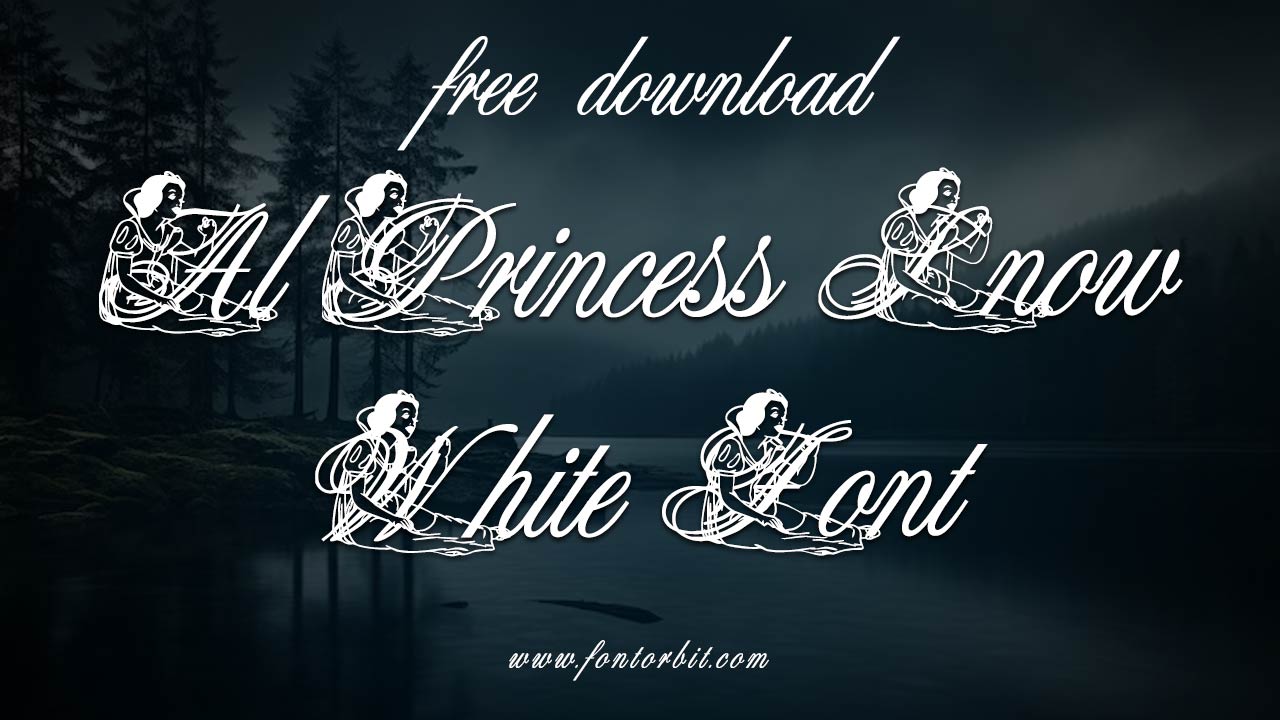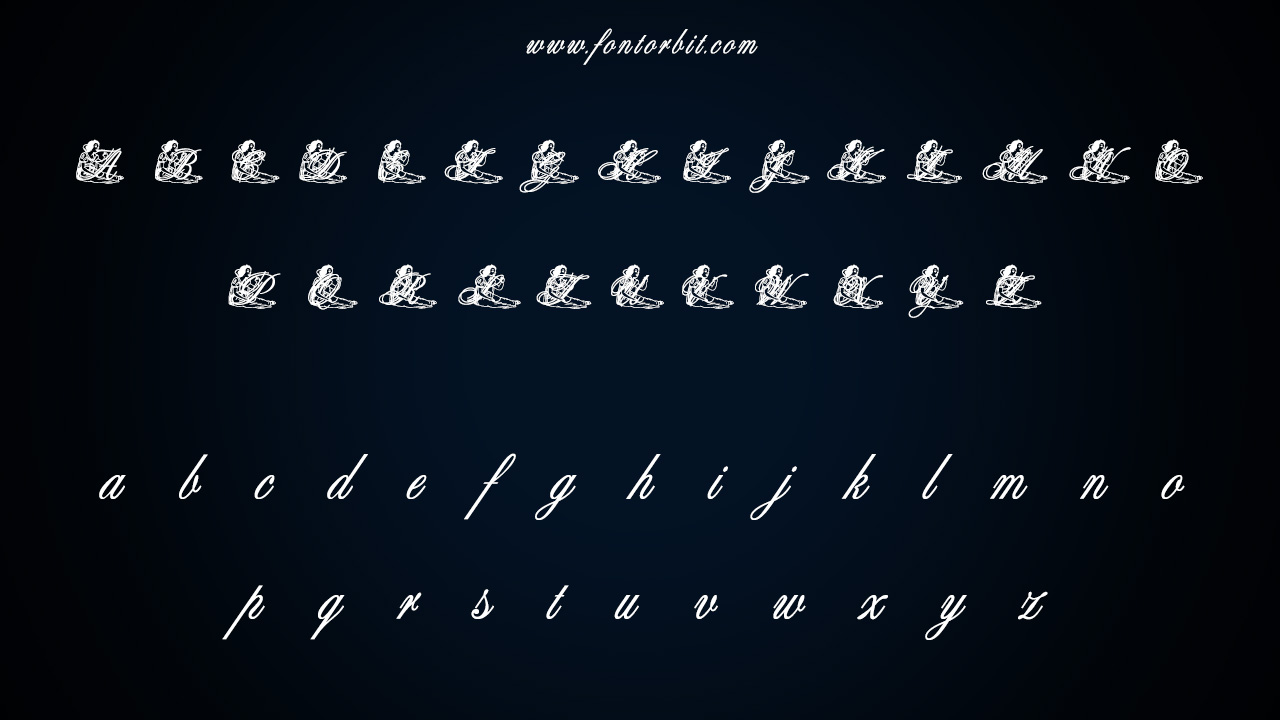
The enchanting world of fairy tales and classic elegance inspires the Al Princess Snow White Font. Designed by ArtsyLady, this font captures the essence of a magical and timeless aesthetic.
The Al Princess Snow White Font features a distinctive script design with hand-drawn elements, reminiscent of fairy-tale storybooks and elegant invitations. While it may not be an official typeface, its style provides a comparable allure. The font is available in the following variations:
Al Princess Snow White Font Found In Use
The Al Princess Snow White Font is ideal for creating enchanting and memorable designs. You’ll often see it used in contexts that benefit from a touch of elegance and whimsy, such as:
The Al Princess Snow White Font embodies the charm of classic fairy-tale elegance with its script design. While it may not be an official typeface for any brand, its style provides a graceful and whimsical touch to various design projects.
For a complementary look, pair the Al Princess Snow White Font with clean, modern sans-serifs or minimalist elements to highlight its enchanting qualities.
ArtsyLady designed the Al Princess Snow White Font to reflect the magical and elegant style associated with fairy tales. It became popular for its unique script style that evokes a sense of timeless charm.
3.What Are The Design Principles Behind The Al Princess Snow White Font?
The design principles of the Al Princess Snow White Font focus on elegant, whimsical letterforms with a hand-drawn quality that captures the spirit of fairy tales and classic elegance.